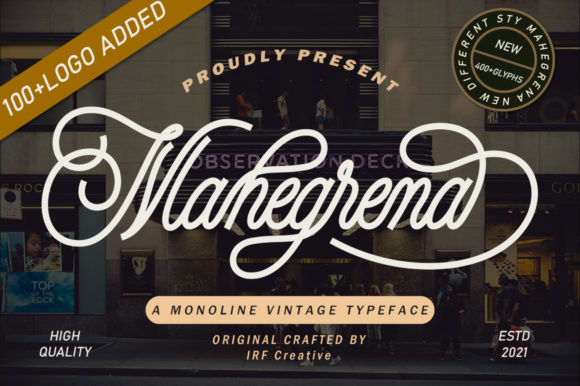
Introducing Mahegrena Font, a captivating script font family that dances across your designs with delicate grace. Crafted by the skilled hands of IRF Lab Studio, Mahegrena is a symphony of beauty and elegance, designed to bring a touch of literary enchantment to your creative endeavors.
Immerse yourself in the world of Mahegrena and discover a font that is as versatile as it is captivating. With its smooth lines, gorgeous glyphs, and stunning alternates, Mahegrena adapts effortlessly to a myriad of design projects. Whether you seek to craft enchanting logos, alluring branding, or heartfelt invitations, Mahegrena will elevate your creations to new heights of sophistication.
As a PUA-encoded font, Mahegrena grants you effortless access to a world of glyphs and swashes, allowing you to unleash your creativity without limits. Explore the boundless possibilities of this versatile font and witness how it transforms your designs into works of art.
Mahegrena, the perfect companion for literary endeavors, captures the essence of classic novels and transports your readers to enchanting worlds. Its delicate strokes and elegant curves evoke a sense of nostalgia, making it an ideal choice for authors and designers seeking to create timeless and captivating works.
Step into the world of Mahegrena and embrace the allure of a font that is both beautiful and versatile. Let Mahegrena guide your creative journey, leaving a trail of literary enchantment in its wake.